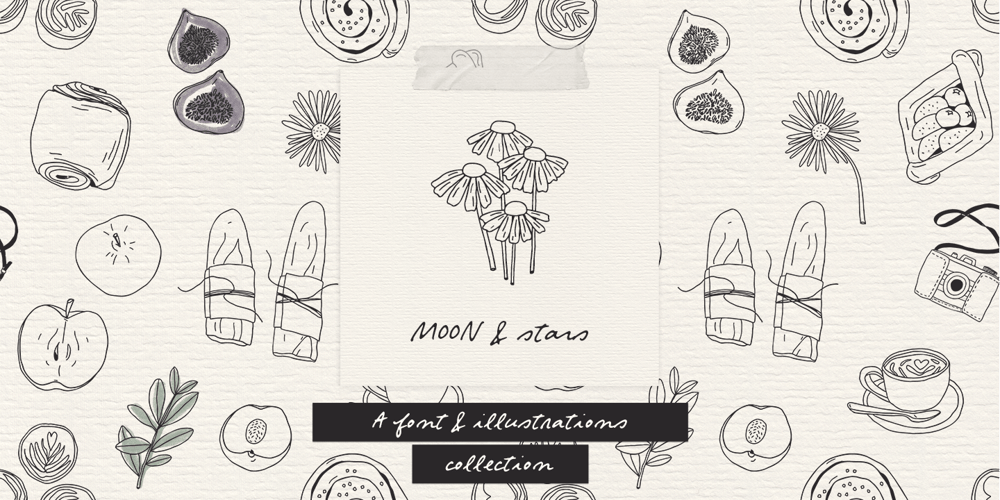
Moon And Stars Font Family was designed by Ana Parracho and published by Ana’s Fonts. Moon And Stars contains 4 styles and family package options. Moon and Stars is a handwritten script font and illustrations collection, perfect to create cute handmade designs, such as logos, packaging, prints and postcards, patterns, and social media posts.Moon and Stars includes: A handwritten script font with tons of ligatures for a smoother text. A dingbat font with 52 handmade line drawings, including food, fruits, vintage objects and plants, with a bonus blackout version.